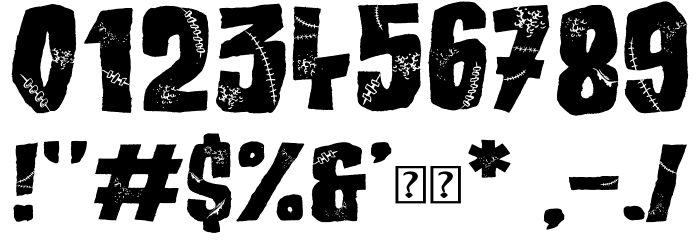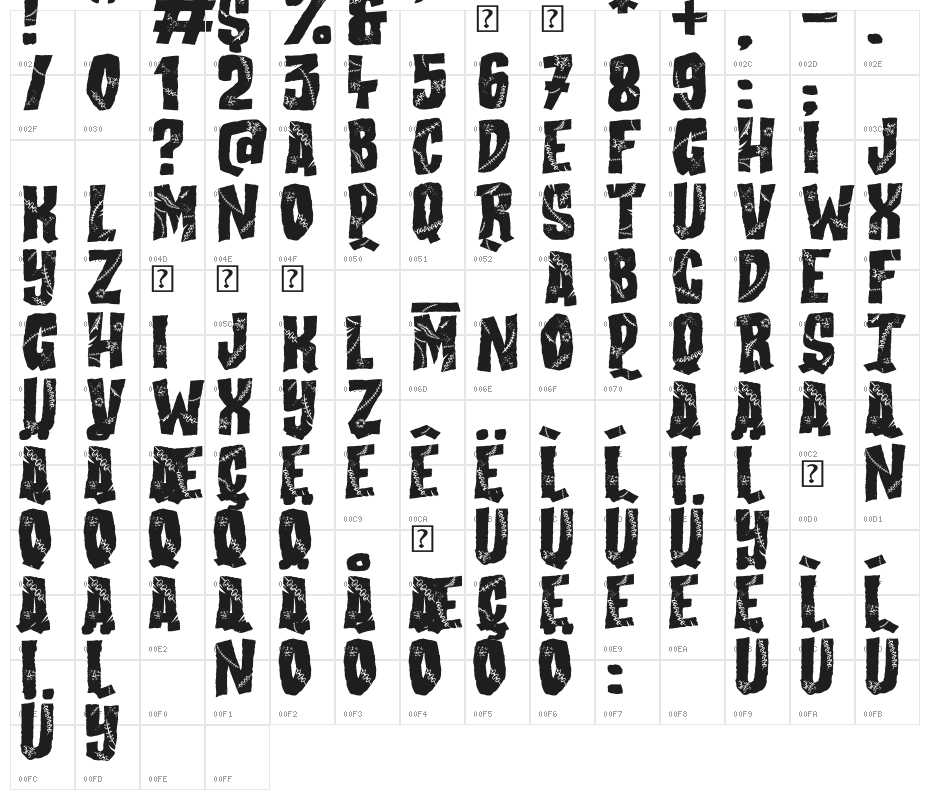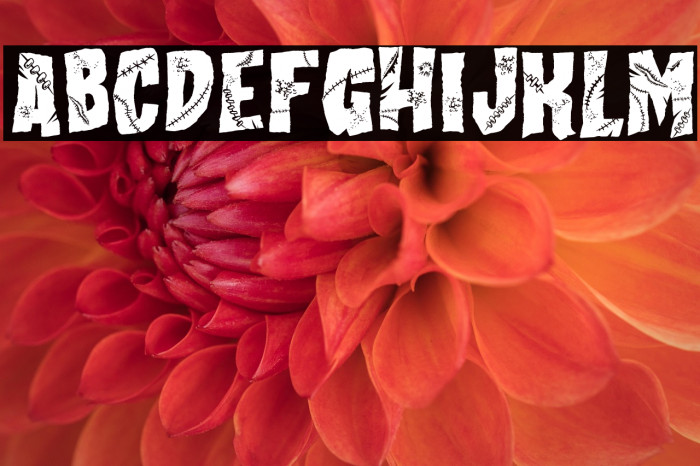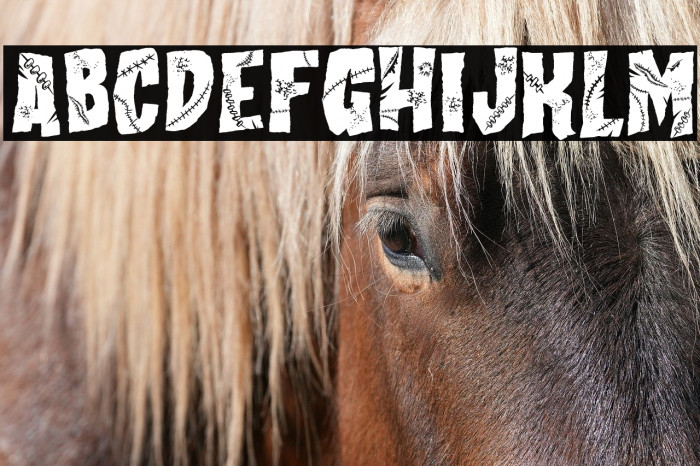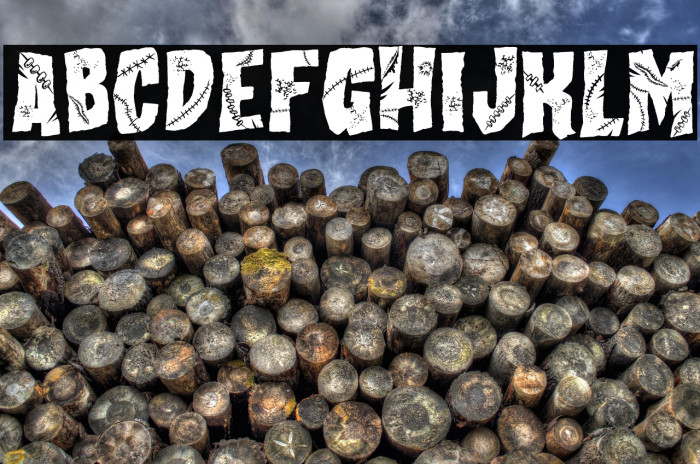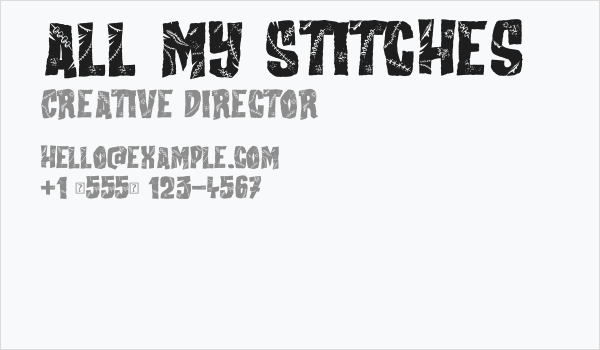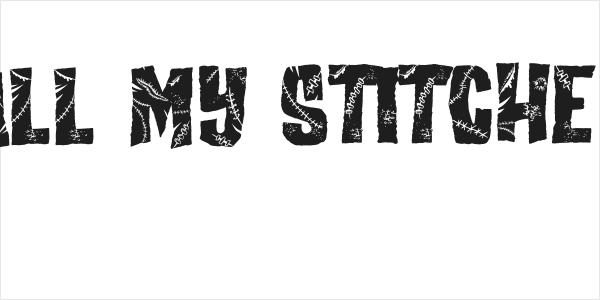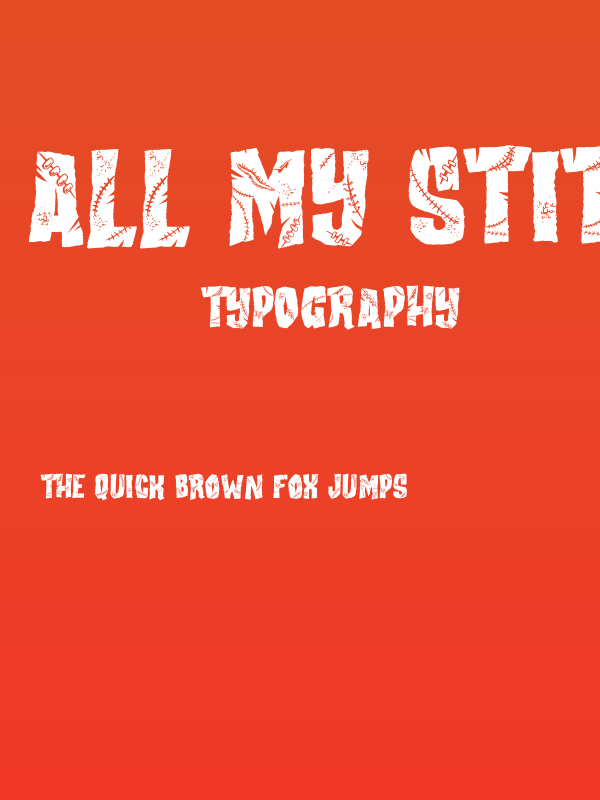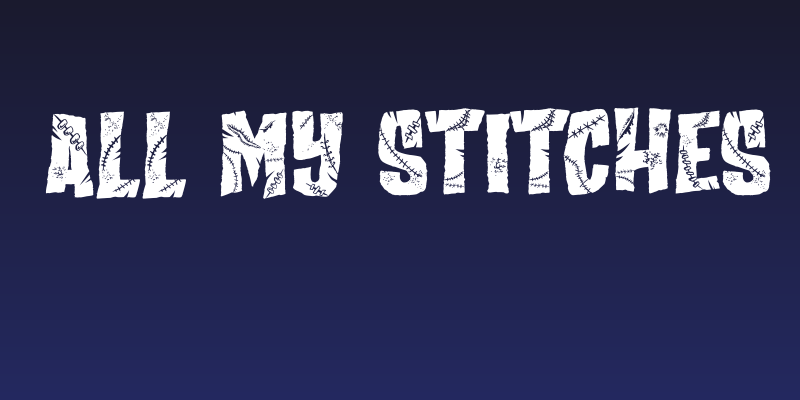
All my Stitches Font
All my Stitches Description
This font features a bold and rugged design, characterized by its distressed and textured appearance. Each character appears as if it has been stitched together, giving it a unique, handcrafted look. The letters are bold and slightly irregular, adding to the overall rustic and edgy feel. The font includes both uppercase and lowercase letters, numbers, and a variety of special characters. Its distinctive style makes it stand out, ideal for projects that require a strong visual impact.